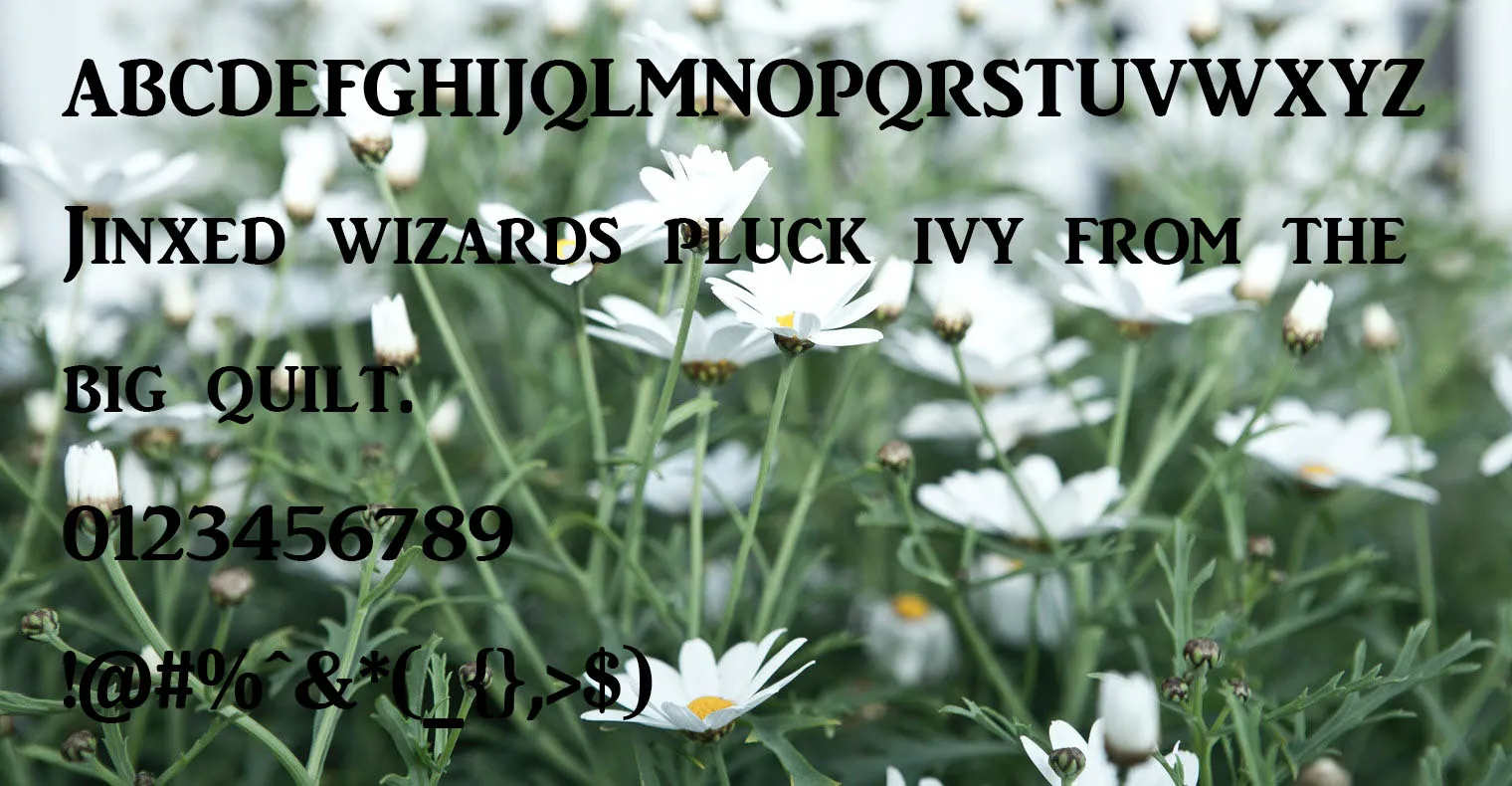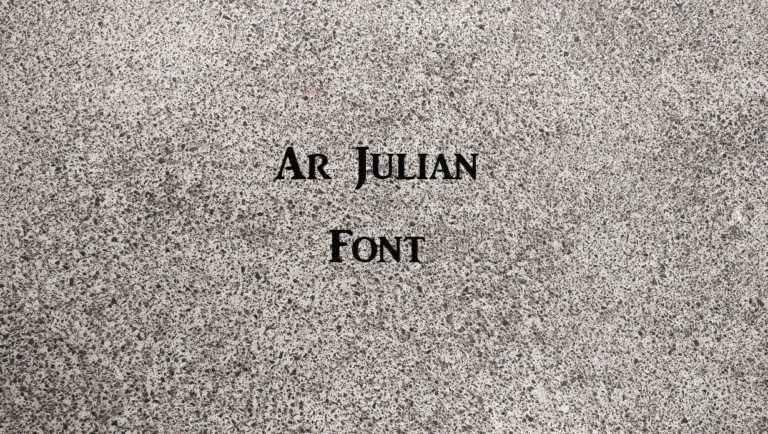
About AR Julian Font
Introducing another stunning typeface known as AR Julian Font, which falls under the Serif font family category. What sets this font apart from others in its family are its striking bold textures and distinctive stylish appearance.